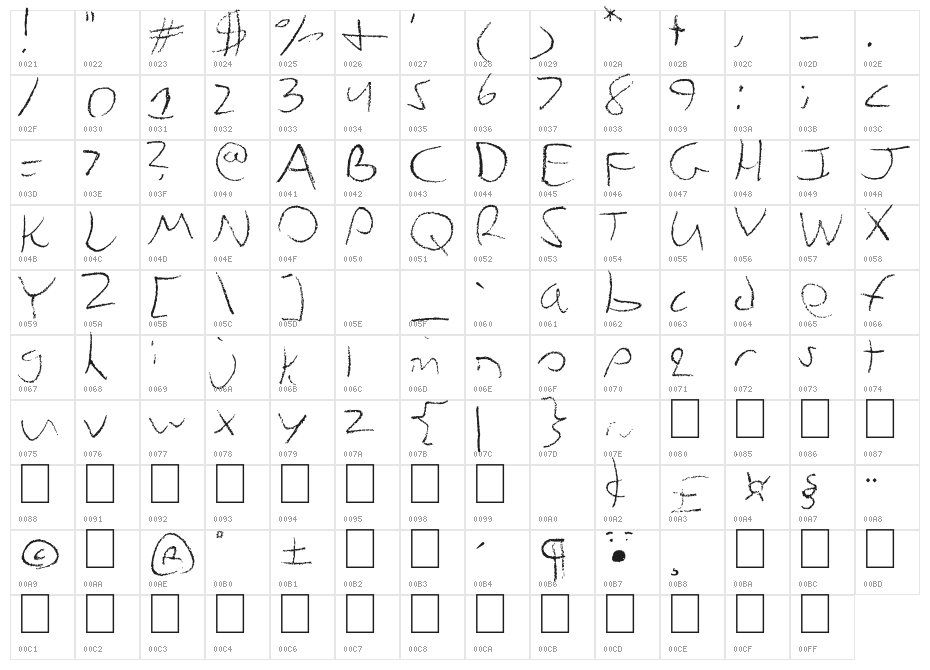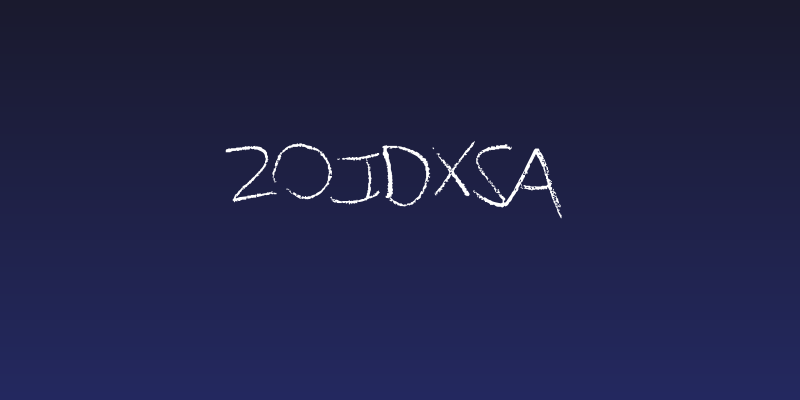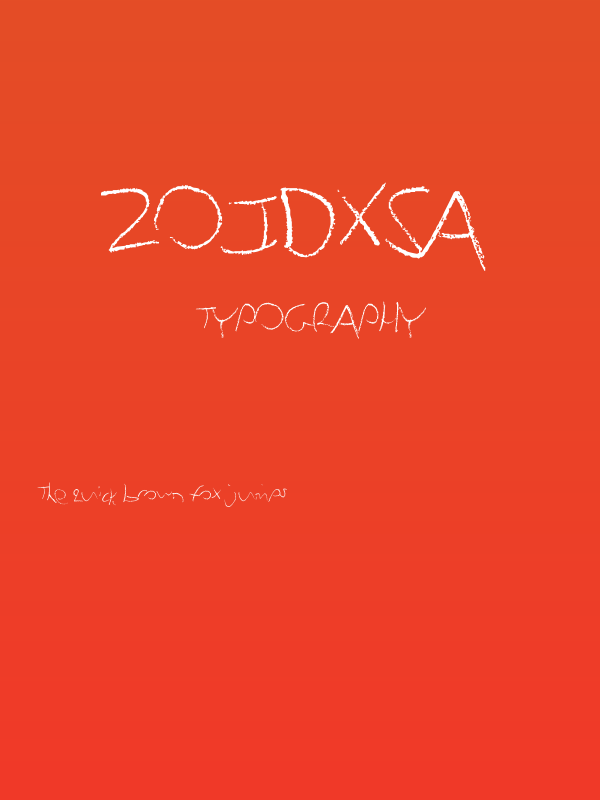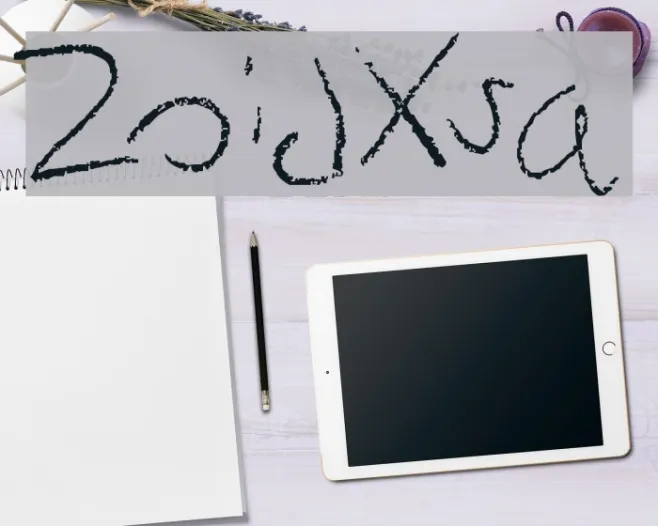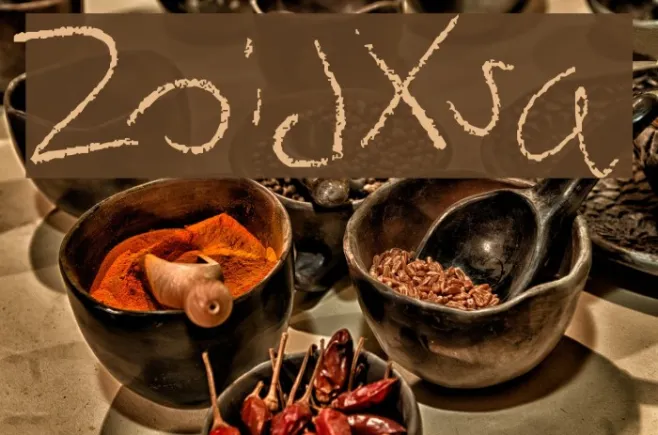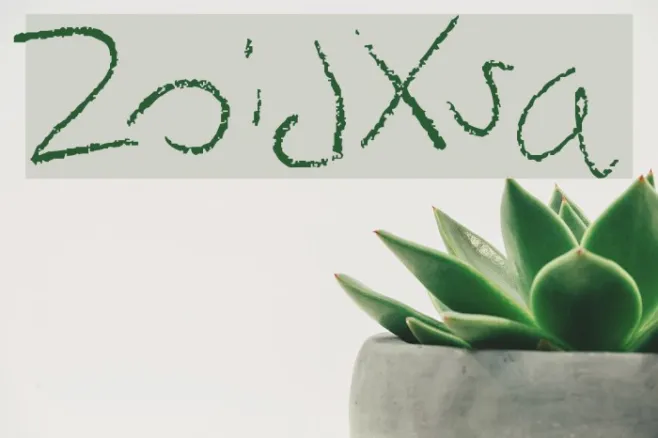
ZoidXsa Font
ZoidXsa Description
This font features a unique, hand-drawn style that mimics the appearance of chalk or crayon on a rough surface. The characters are irregular and slightly distorted, giving them a playful and informal look. The uppercase and lowercase letters maintain a consistent style, with a noticeable rough texture that adds to the font's charm. The numbers and special characters follow the same design, ensuring a cohesive appearance across all glyphs. This font's distinctive style makes it stand out, perfect for projects that require a touch of creativity and spontaneity.
| Use Case | Headlines, Logos, Artistic projects |
| Proposed Projects | Ideal for children's book covers, playful posters, artistic branding, and creative social media graphics. |